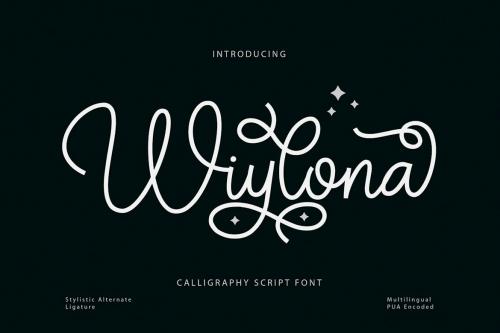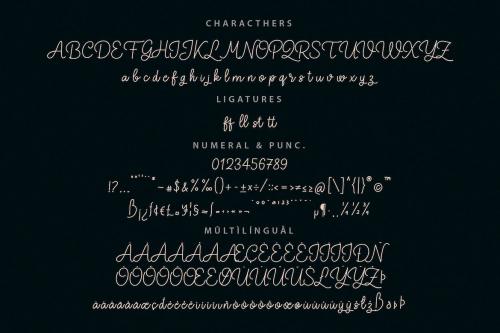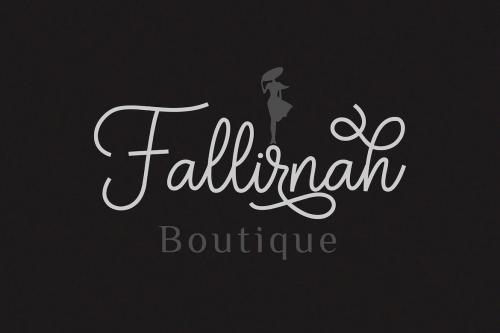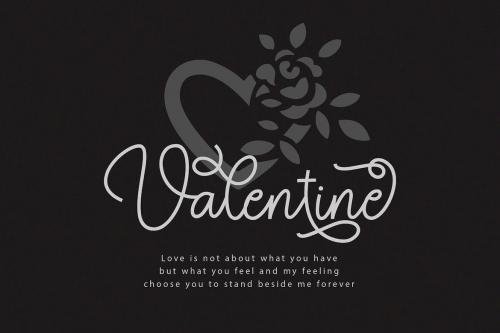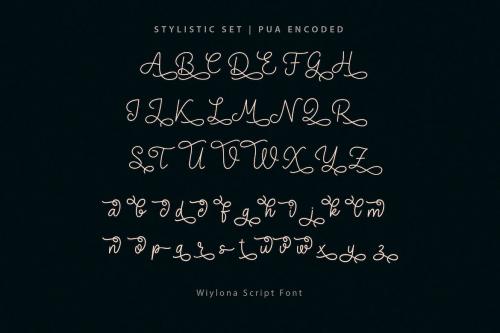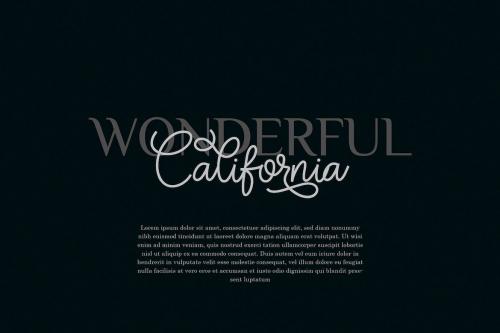
Wiylona - Chic Calligraphy Font
**Wiylona** is a delicate, chic and whimsical handwritten font. Trendy and stylish, this font will elevate each of your creations.
*Uppercase, Lowercase, Numerals & Punctuations
*Ligature & Alternate
*Multilingual support